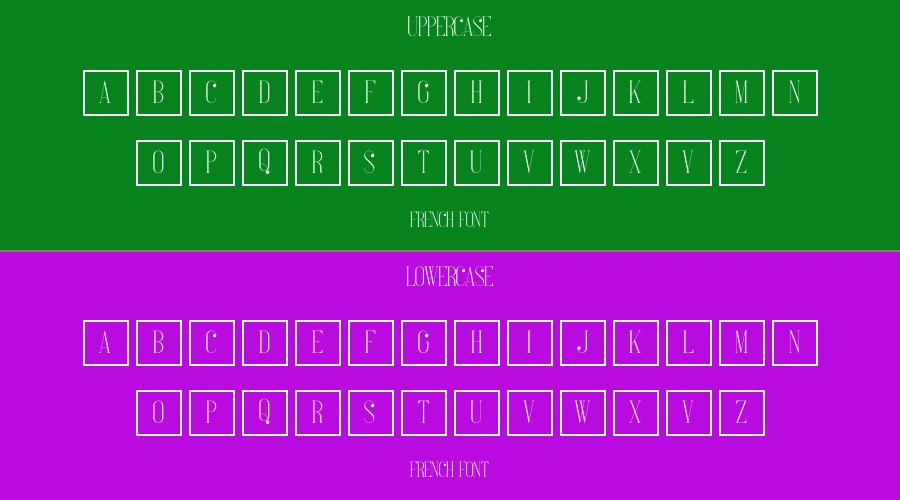
About French Font
French Font stands out for its distinctive combination of refined proportions and refinement. Ideal for academic publications, it provides the versatility and system compatibility that professional projects demand. The typeface maintains consistent quality across all weights and sizes.
Key features include refined curved brackets and practical display figures, enhancing typographic expression. In instruction steps applications, French Font demonstrates exceptional overlay performance. The descender depth and cultural relevance contribute to its distinctive character and professional appeal.